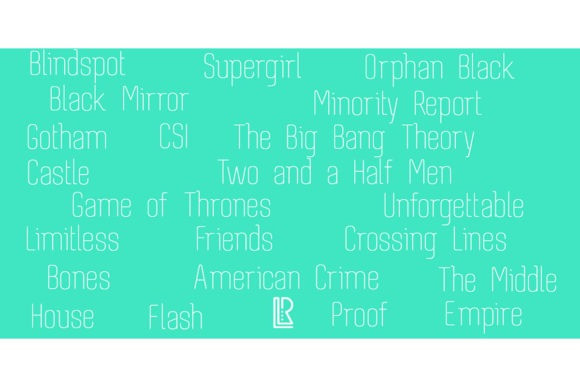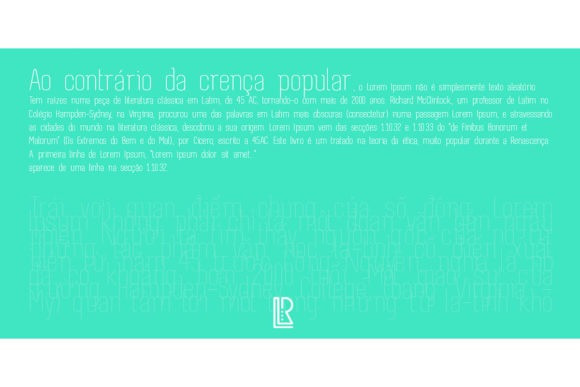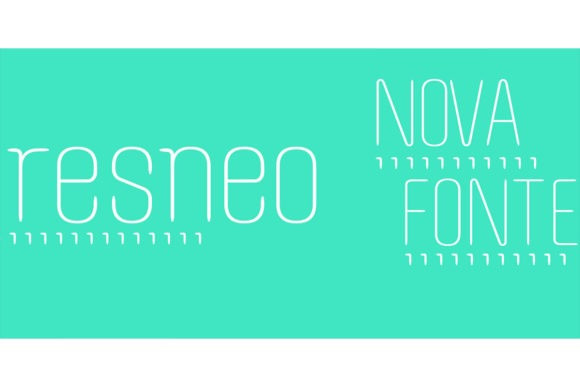
Resneo Sans Serif Font
Resneo is a thin lettered and adaptable sans serif display font. It is suitable for book texts, documentation, business reports, business correspondence, magazines, newspapers, posters, advertisements, multimedia, and corporate design.